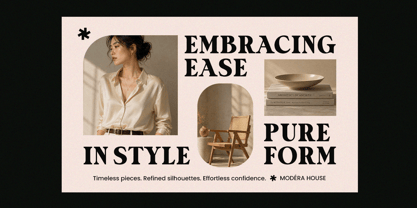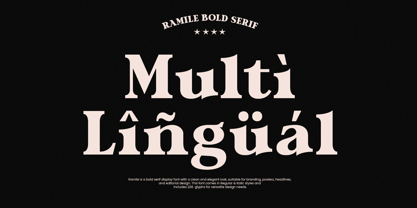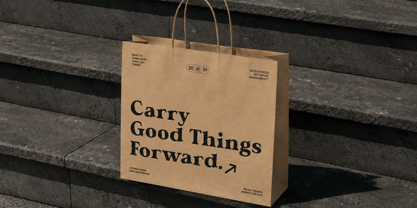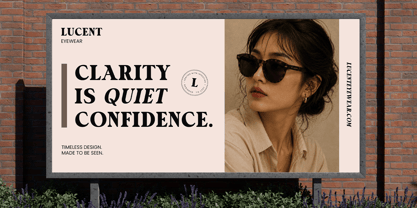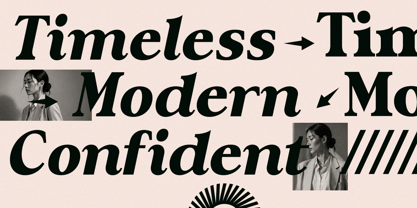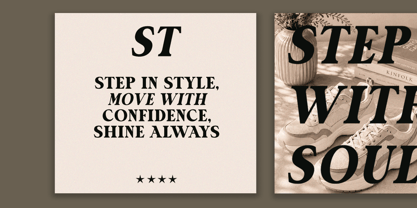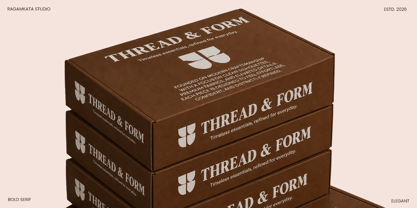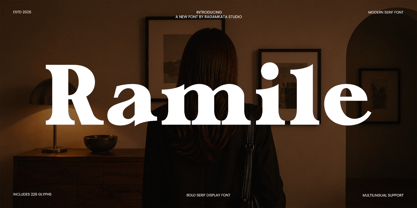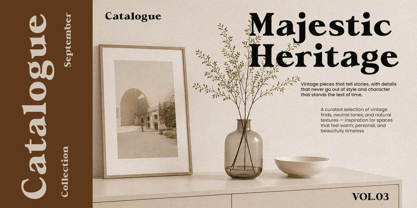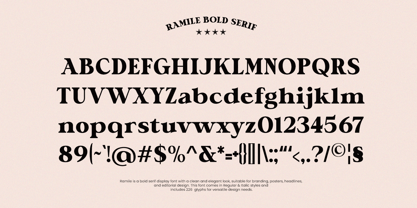
Ramile
Introducing Ramile, a bold modern serif display font crafted to deliver elegance, confidence, and timeless sophistication. Designed with strong contrast, refined proportions, and luxurious serif details, this typeface creates an instantly premium visual presence. Its commanding letterforms make it ideal for high-impact branding and editorial projects that demand attention while maintaining a polished, upscale aesthetic.
Ramile is perfectly suited for luxury branding, fashion campaigns, magazine headlines, cosmetic packaging, premium product labels, logo creation, hotel identity systems, invitation designs, and sophisticated social media visuals. The combination of classic serif elegance with modern display styling makes this typeface highly versatile for both commercial and creative design applications where prestige and clarity matter.
With multilingual support and beautifully balanced characters, Ramile helps designers create memorable typography compositions with a premium editorial feel. Whether used for luxury branding, boutique packaging, fashion promotions, or cinematic poster design, this font brings authority, elegance, and contemporary sophistication to every project.
Regular and Italic Style
Uppercase and Lowercase
Number, Symbol, Punctuation
Multi Language Support